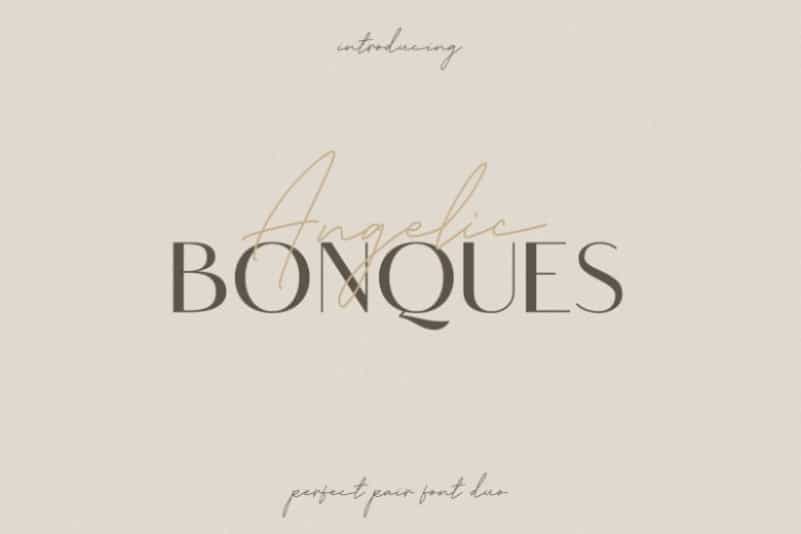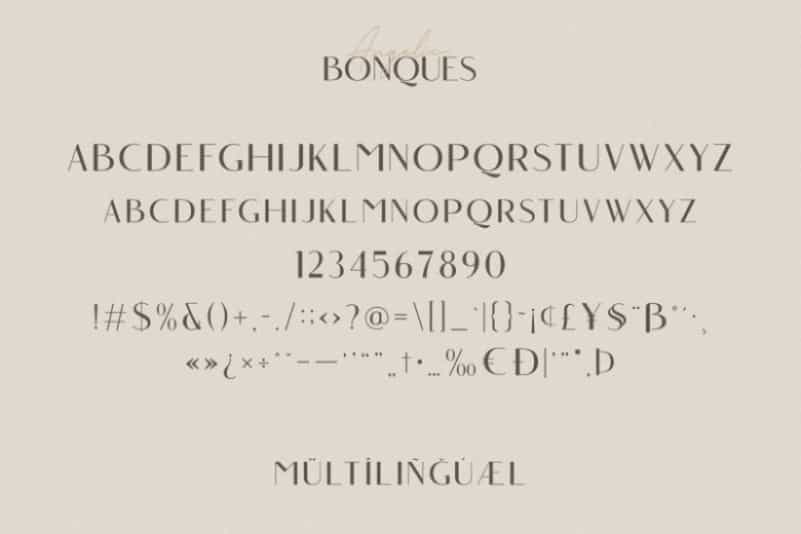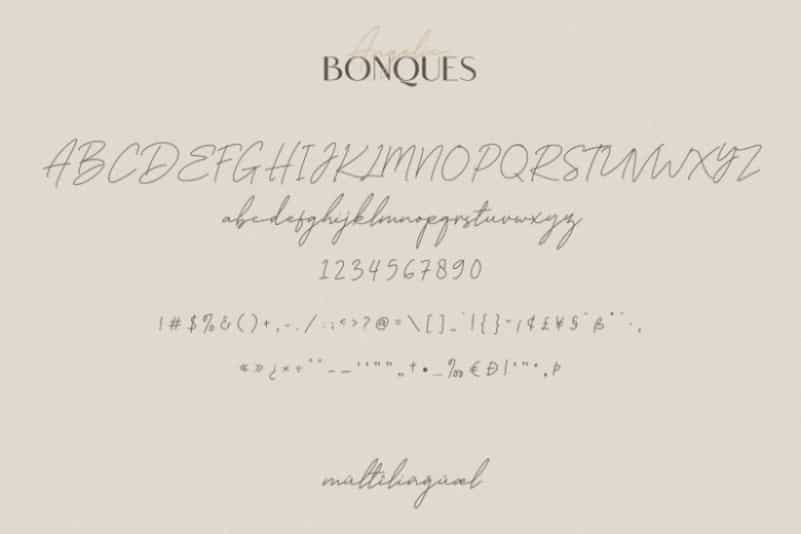
Discover Angelic Bonques Font Duo, part of the Sans Serif Handwritten collection—a versatile and unique font perfect for adding a personal touch to your projects. Download it for free and enjoy crafting designs with style, from invitations to social media posts. This font is available exclusively for personal use, giving you the freedom to create without limits. Unlock your creativity with Angelic Bonques Font Duo today!
Angelic Bonques is a set of three fonts that can be used in any design project and give it a romantic appearance.